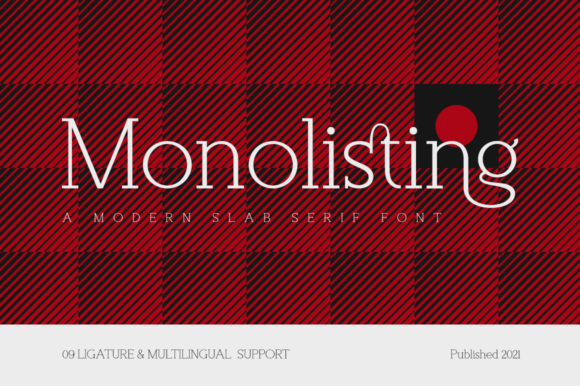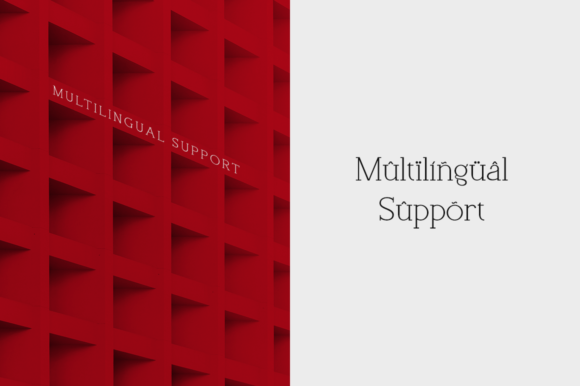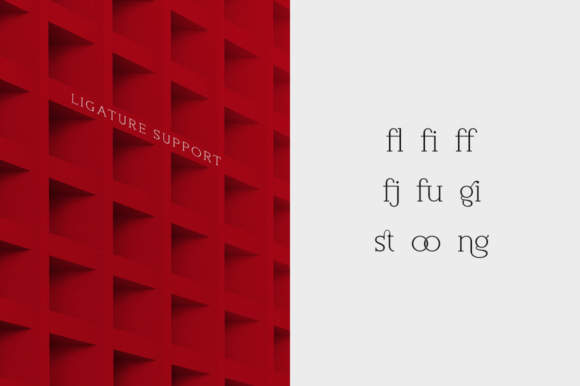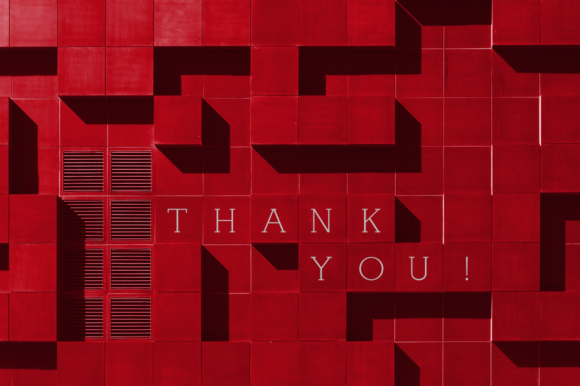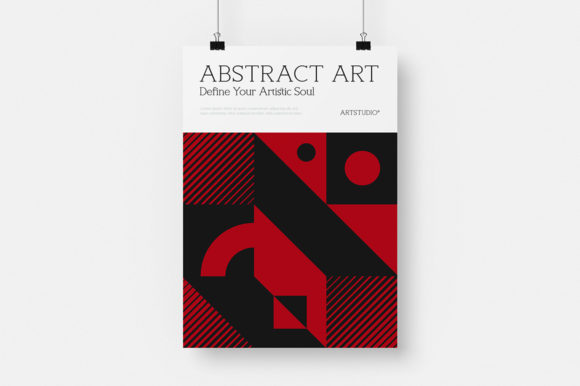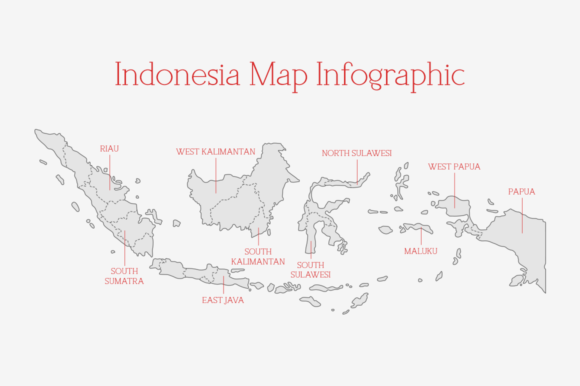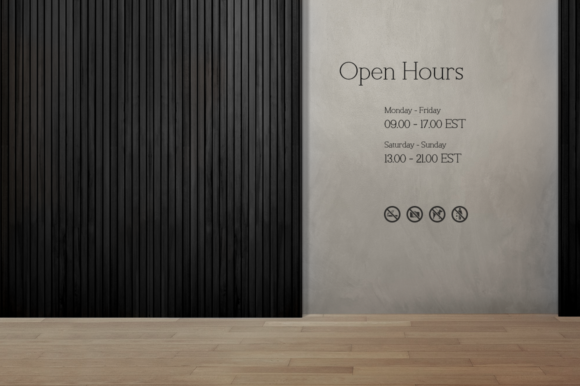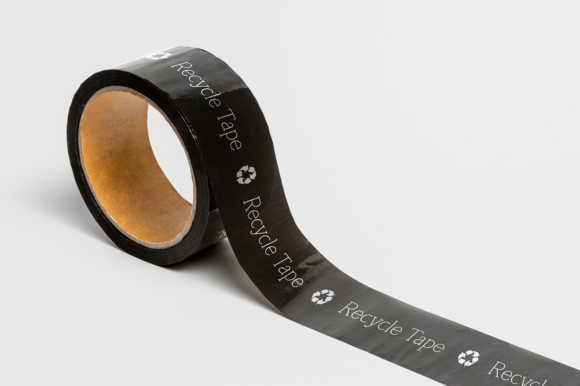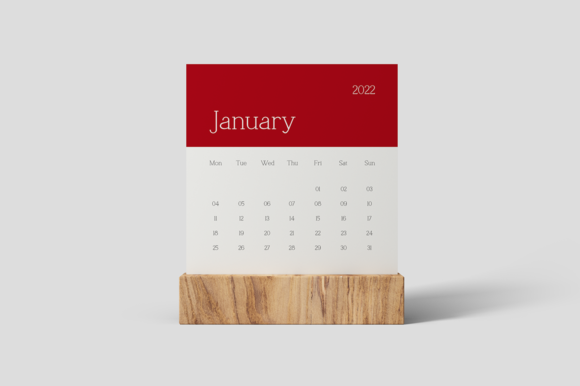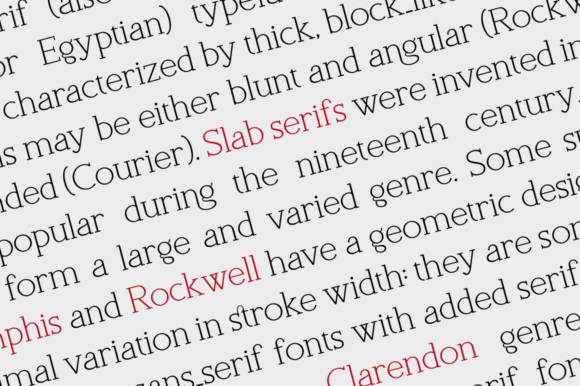
Monolisting
Monolisting: A Minimal and Neat Slab Serif Font
Monolisting is a distinctive slab serif font that combines minimalism with a neat aesthetic. This versatile typeface is designed to be easily matched to an incredibly large set of projects, making it a powerful tool for designers looking to make their creative ideas stand out.
Key Features of Monolisting
• Minimal Design: Features clean and uncomplicated letterforms for maximum clarity.
• Neat Aesthetic: Offers a tidy and organized look suitable for various applications.
• Slab Serif Structure: Maintains the characteristic thick, rectangular serifs typical of slab serif fonts.
• Versatile Application: Easily matched to a wide range of projects across various contexts.
• Stand-Out Quality: Designed to elevate creative ideas and make them visually striking.
Ideal Uses for Monolisting
Monolisting’s unique characteristics make it particularly well-suited for:
• Modern branding and logo design
• Clean and minimalist website layouts
• Professional business cards and stationery
• Magazine and editorial designs
• Packaging design for products aiming for a sleek look
When incorporating Monolisting into your designs, consider the following tips:
• Use for both headlines and short blocks of text to showcase its minimal and neat style
• Experiment with different sizes to highlight the font’s clean details
• Consider pairing with complementary sans-serif fonts for body text to maintain a modern look
• Take advantage of its versatility across various themes and styles in your projects
Monolisting is an excellent choice for designers looking to add a minimal and neat slab serif font to their typographic toolkit. Its ability to enhance various design projects makes it stand out in the world of typography. Whether you’re working on logo designs, creating layouts for modern websites, or developing content that requires a clean and professional touch, Monolisting offers the perfect blend of minimalism and versatility.
Add Monolisting to your creative projects and explore how it can elevate your designs with its minimal and neat style. From sleek headlines to engaging branding elements, this font provides the tools to create impactful and memorable typography that resonates with audiences seeking a modern and clean aesthetic. It’s versatile enough to be used in various contexts, from vintage-inspired designs with a contemporary twist to playful layouts that need a touch of sophistication.
Whether you’re creating a magical and mysterious atmosphere or aiming for a more thoughtful and introspective mood in your designs, Monolisting can adapt to your needs. Its flexibility allows it to work well in both modern, minimalist projects and themed designs that require a clean and contemporary look. For those looking to add a touch of simplicity with a timeless feel, this font can even complement vintage-inspired creations with a unique, modern twist.